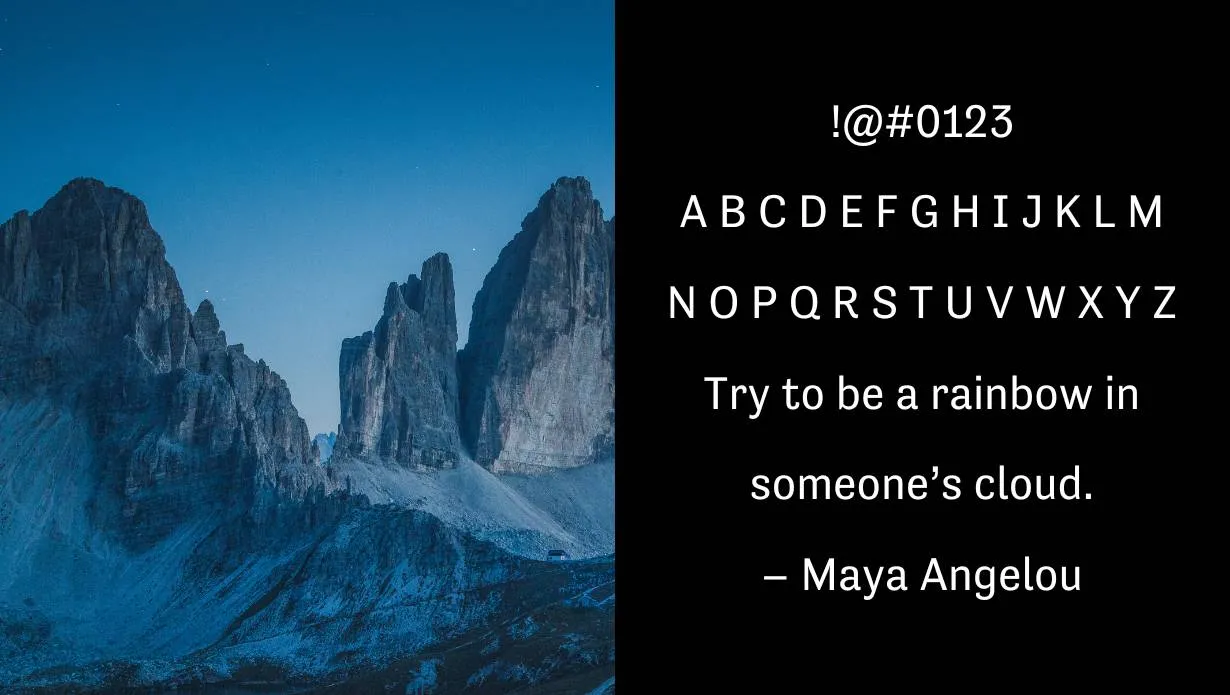
Tenso is a sans-serif typeface that was created by a very well-famed graphic designer named Jos Buivenga and it was published by a very famous foundry named exljbris Font Foundry. The design is based on simple geometric shapes and the family includes 10 weights (regular to black italic).
It has a very large x-height and short descenders, which makes it great for small sizes and legibility on screen.
The typeface family was first released in 2001 and since then it has been used by many publications and brands, such as Forbes, The Guardian, and more.
| Name | Tenso Font |
| Designer | Jos Buivenga |
| Style | Sans-serif |